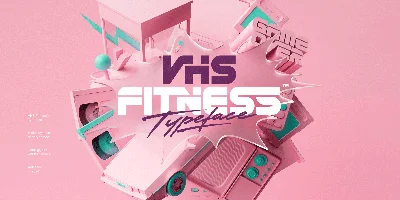
Vhs Fitness Font
Designers reaching for Vhs Fitness find a typeface that holds up across diverse media — print, web, and motion.
Its proportions suit a wide range of uses: website headers, printed flyers, restaurant menus, annual reports, and product packaging.